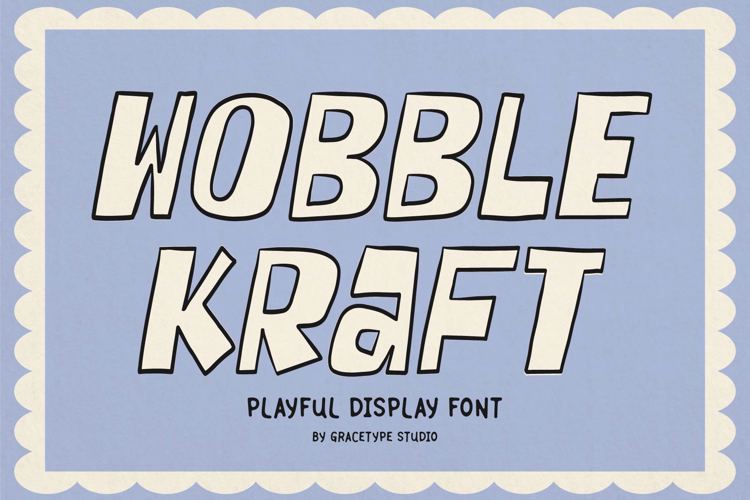
Wobble Kraft Font
Outline Regular Style
Wobble Kraft | Playful Display Font, is suitable for any projects such as: logos, branding projects, homeware designs, product packaging, mugs, quotes, posters, shopping bags, t-shirts, book covers, name card, invitation cards, greeting cards, label, photography, watermark, special events, and all your other lovely projects that need a Playful f taste.